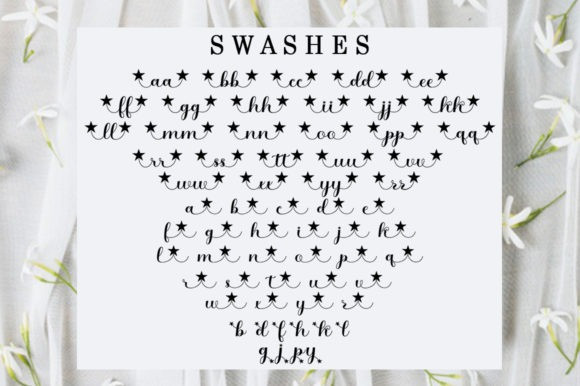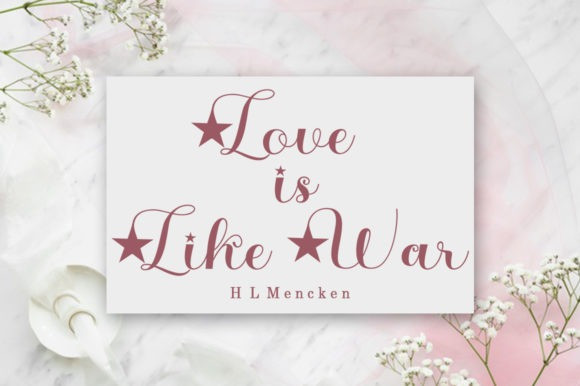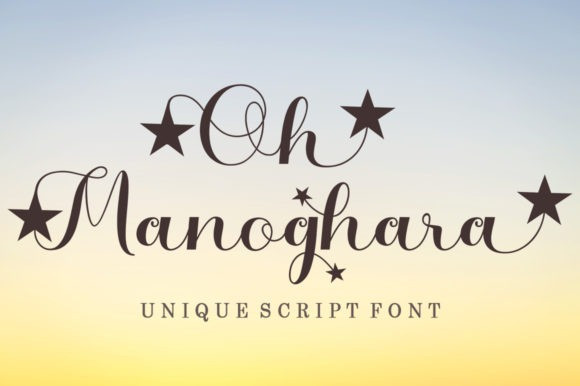
Oh Manoghara Font
Oh Manoghara Script Font feels equally unique and whimsical. It looks lovely on wedding invitations, thank you cards, quotes, greeting cards, logos, business cards and every other design which needs a handwritten touch.
This font is PUA encoded which means you can access all of the glyphs and swashes with ease!